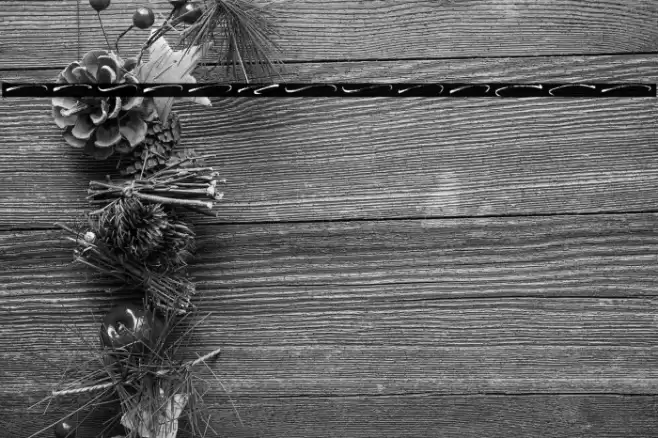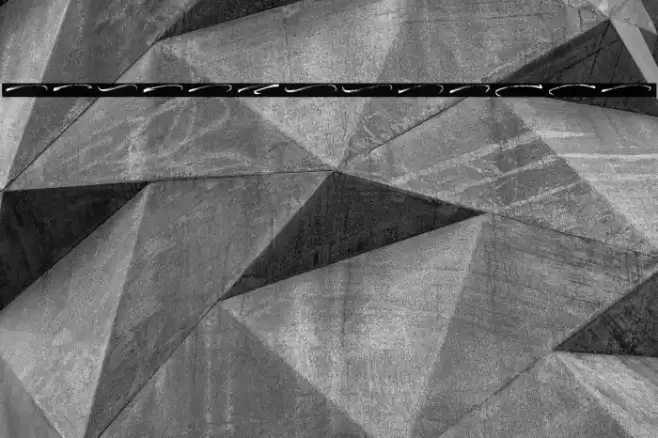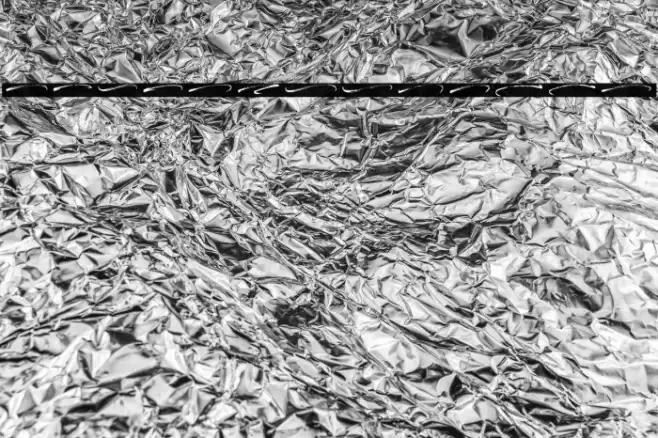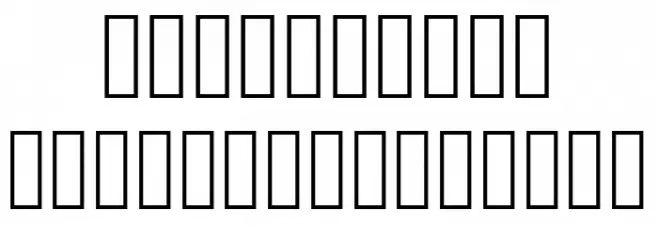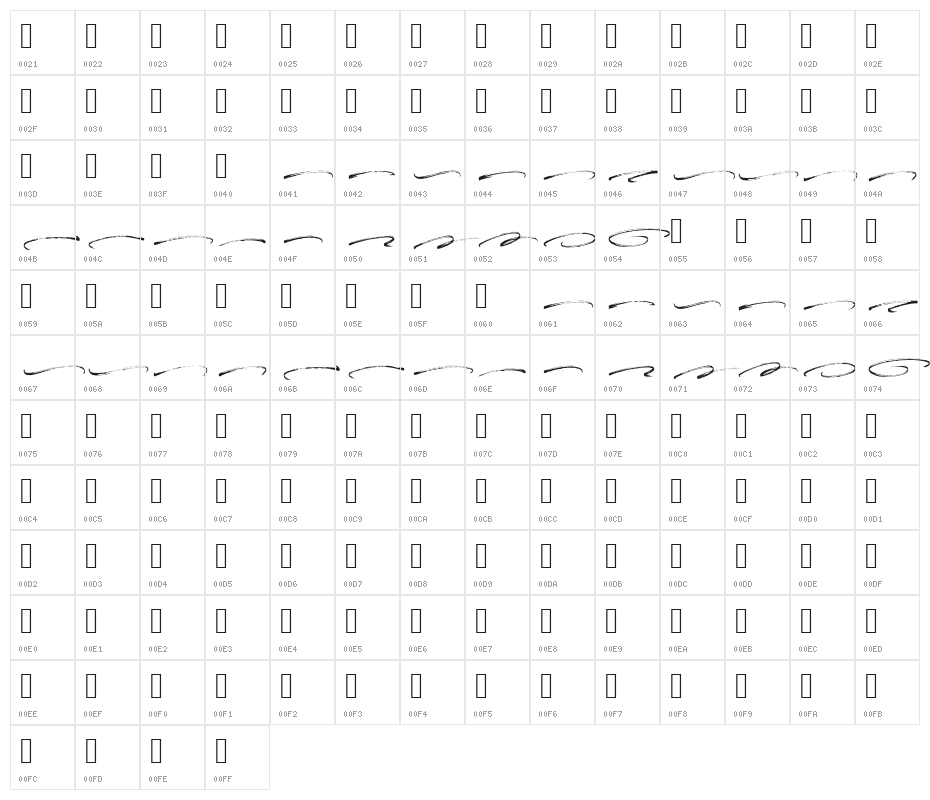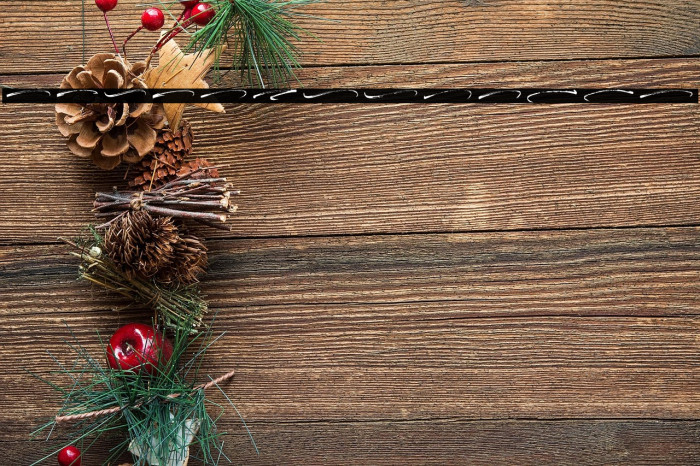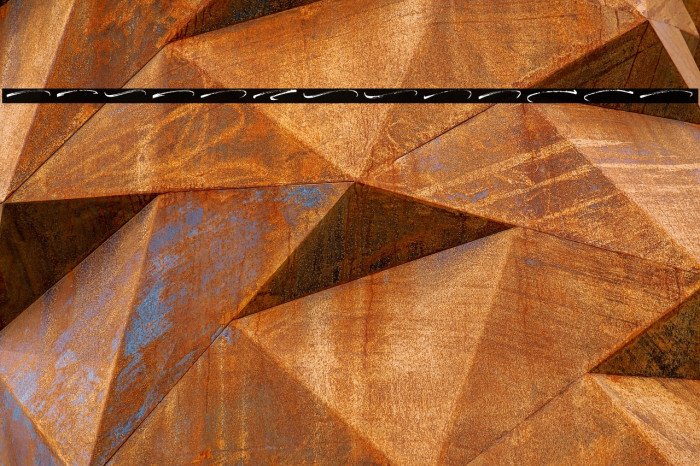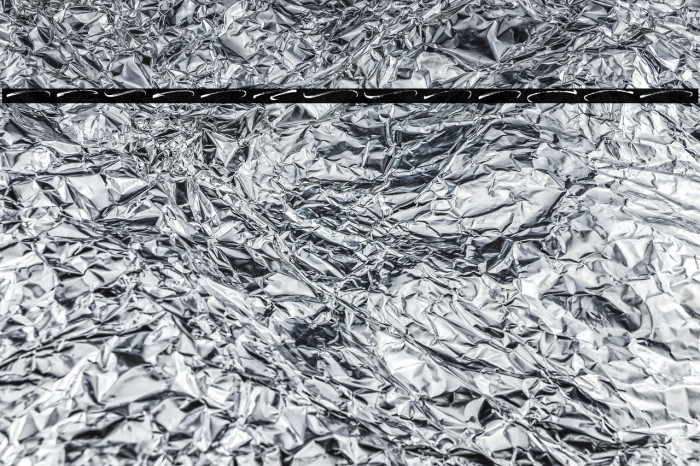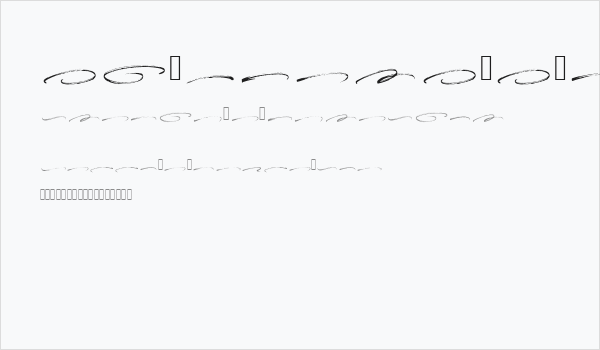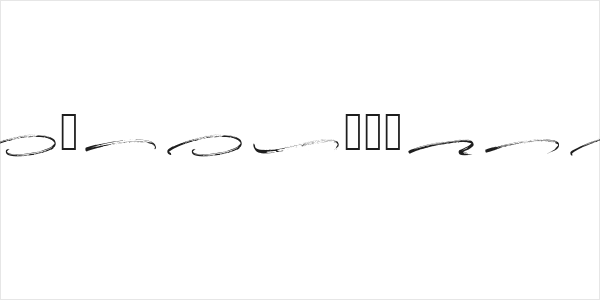
Stunders Swash - Personal Use Font
Stunders Swash - Personal Use Description
This font features an elegant and flowing script style, characterized by its sweeping swashes and delicate curves. The letters are interconnected, creating a seamless and fluid appearance that mimics the natural motion of handwriting. The strokes vary in thickness, adding a dynamic and lively feel to the text. This font exudes a sense of sophistication and grace, making it ideal for projects that require a personal and artistic touch. The overall design is both decorative and functional, suitable for a variety of creative applications.
An elegant script font with flowing swashes and delicate curves from Uncategorized fonts.
- Font: Stunders Swash - Personal Use
- Proposed Projects: Ideal for wedding invitations, greeting cards, branding, and artistic projects.
- Character Spacing: Tight
- Use Case: Logos, Invitations, Artistic projects